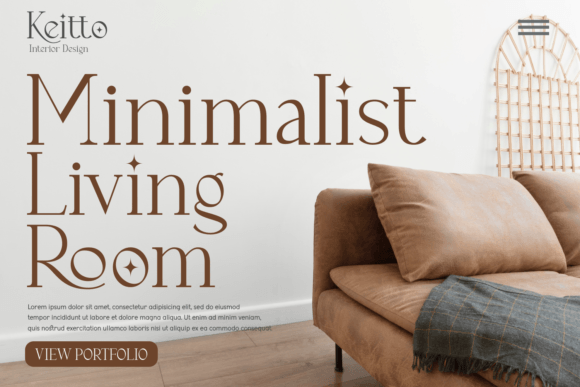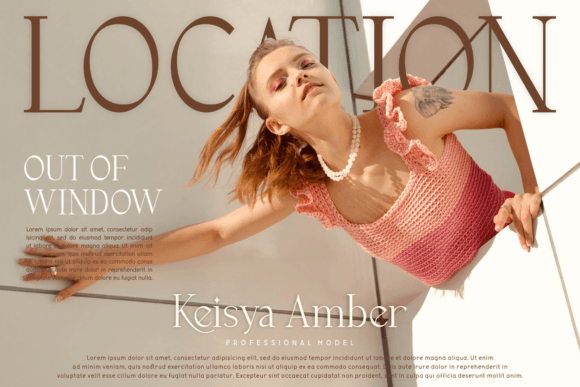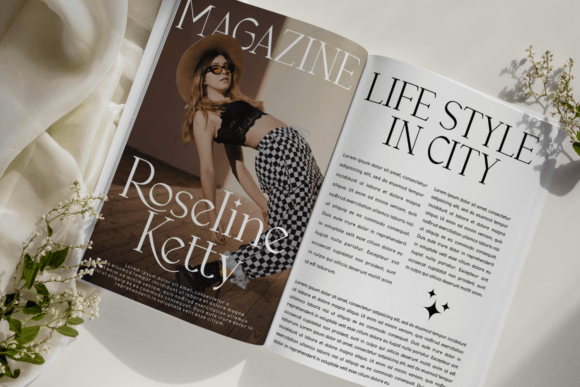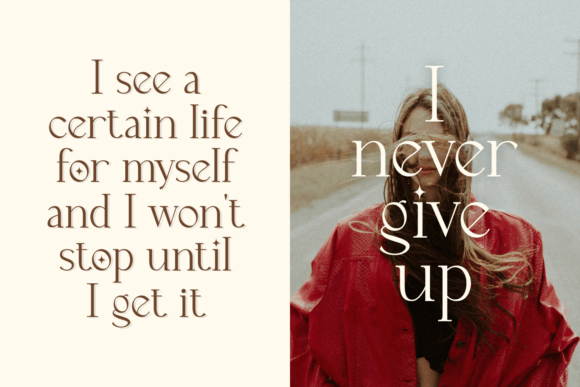
Introduction to Sergio Romeo Font
As a designer, there’s nothing quite like the thrill of bringing a creative project to life. You’re pouring over a blank canvas, trying to distill your vision into a cohesive visual language. Suddenly, the perfect font pops into your mind – a serif typeface that’s both modern and timeless, elegant and refined. Enter Sergio Romeo Font, the ultimate design resource for those seeking to add a touch of sophistication to their work.
Whether you’re working on a high-quality editorial piece or a branding project, Sergio Romeo Font is the perfect companion to help you achieve your creative goals. With its clean lines, graceful curves, and transparent background, it’s a versatile design tool that can elevate any project to new heights. And the best part? It’s available for free download, making it an invaluable resource for designers of all levels.
So why is Sergio Romeo Font so valuable for designers? Simply put, it’s a game-changer for anyone looking to add a polished and refined look to their work. With its high quality and timeless charm, it’s the perfect addition to any design arsenal.
Key Features of Sergio Romeo Font
- High-quality design resource ideal for creative projects, with a unique and elegant style.
- Includes a transparent background, allowing for easy integration into various design elements.
- Features a clear and legible design, suitable for use in logos, typography, and other creative applications.
Honest Review: Sergio Romeo Font
I recently stumbled upon the Sergio Romeo Font, and I must say it’s a gem in the world of design resources. This high-quality font is a perfect addition to any creative project.
- ✨ The font’s unique and elegant design makes it perfect for creating visually appealing graphics and text.
- ✨ The font’s transparent background allows for seamless integration with various design elements.
- ⚠️ The font’s character set is limited, which might be a concern for designers who need to work with non-English text.
Overall, I’m impressed with the Sergio Romeo Font. Its high quality and unique design make it a valuable resource for designers. While it may have some limitations, I believe it’s worth considering for your next creative project.
To get the most out of the Sergio Romeo Font, use it for:
- Creating a transparent background with the font.
- Designing a logo or branding materials.
- Adding a touch of elegance to your website or social media graphics.
Remember to use the font on a high-quality design project to showcase its beauty.
Does the Sergio Romeo Font support transparent backgrounds?
Yes, the Sergio Romeo Font supports transparent backgrounds, making it ideal for designs that require a clear and transparent look. You can easily create stunning designs with a transparent background using the Sergio Romeo Font.